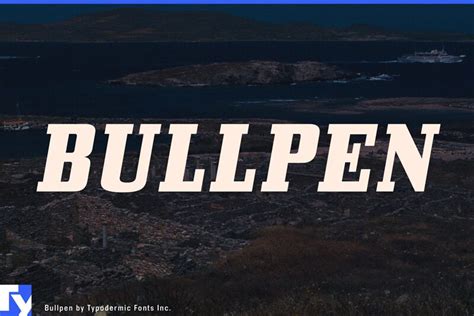
OSCOSC Bullpen SCSC Font: Your Guide To Heavy Italic
OSCOSC Bullpen SCSC Font: Your Guide to Heavy Italic
Hey there, font enthusiasts! Ever stumbled upon the OSCOSC Bullpen SCSC Heavy Italic font and wondered what the buzz is all about? Well, you’re in the right place! This guide is your ultimate pit stop for everything you need to know about this unique typeface. We’ll dive deep into its origins, characteristics, and practical uses, helping you understand why the OSCOSC Bullpen SCSC Heavy Italic font is a fantastic choice for your design projects. Get ready to explore the world of fonts, and let’s unravel the beauty of this specific font together. Whether you’re a seasoned designer or a newbie, this is for you!
Decoding the OSCOSC Bullpen SCSC Heavy Italic Font
Alright, let’s get down to brass tacks. What exactly is the OSCOSC Bullpen SCSC Heavy Italic font ? In a nutshell, it’s a typeface known for its robust and slanted appearance. The “Heavy” in its name tells us it’s a bold font, designed to grab attention. “Italic,” of course, means the letters are tilted to the right, giving it a dynamic and energetic feel. The SCSC part likely refers to the foundry or designer behind it, but we’ll focus on its visual impact. This font combines strength and elegance, making it ideal for a wide range of design applications. Think of it as a statement piece – it’s designed to make your text pop!
When we talk about the OSCOSC Bullpen SCSC Heavy Italic font , we’re referring to a font that exudes confidence and character. The slant of the italic adds a sense of movement, while the heavy weight ensures it’s easily readable, even at smaller sizes. This font isn’t just about aesthetics; it’s about conveying a specific message or feeling. It’s perfect for anything from headlines and logos to body text that needs a touch of flair. The carefully crafted letterforms of the OSCOSC Bullpen SCSC Heavy Italic font work to create a visually appealing experience, drawing the reader in and holding their attention. It’s a versatile font, offering a mix of visual appeal and readability, making it an excellent addition to any designer’s toolkit. So, let’s explore how and where you can use this awesome font to create some seriously cool designs. Keep reading!
Key Characteristics of the OSCOSC Bullpen SCSC Heavy Italic Font
So, what are the specific traits that define the OSCOSC Bullpen SCSC Heavy Italic font ? Let’s break it down to appreciate its beauty. First off, its boldness is a key feature. The thick strokes of each letter ensure maximum visibility, making it a great choice for headings and titles. Then there’s the italic slant , which gives it that sense of dynamism and movement, preventing it from feeling static. This tilt adds a touch of personality and energy to the text.
The spacing between the letters in the OSCOSC Bullpen SCSC Heavy Italic font is also important. The design usually ensures that the letters are spaced in a way that’s both visually appealing and highly readable. Think about the overall balance. Does it feel harmonious? Does it feel like an easy read? The design tries to maintain an even rhythm, so your eye can easily flow across the words. This helps with readability, which is especially important in longer texts. Moreover, the font’s distinctive letterforms are designed to be recognizable and unique. Every curve, every corner is carefully considered to create a memorable and impactful design. The OSCOSC Bullpen SCSC Heavy Italic font typically includes a full character set, so you can use it for various languages and purposes. The attention to these details makes the font not just aesthetically pleasing but also highly functional for a wide variety of design applications. It’s a tool that can drastically transform how your message is perceived.
Practical Applications: Where to Use the OSCOSC Bullpen SCSC Heavy Italic Font
Now for the fun part: how and where can you actually use the OSCOSC Bullpen SCSC Heavy Italic font ? Its boldness and italic slant make it perfect for specific applications. It’s fantastic for headlines and titles in print and digital designs. Imagine this font on a website banner or a magazine cover. It grabs attention immediately, making your message stand out. This font also works well in logos and branding . Its unique look can help a brand establish a strong visual identity. It’s memorable and conveys a sense of confidence and creativity. Logos using this font are designed to be immediately recognizable and impactful, helping in brand recall and recognition.
Moreover, the OSCOSC Bullpen SCSC Heavy Italic font can be effectively used for call-to-action buttons or any text element that needs to jump out at the viewer. Whether it’s a “Buy Now” button on a website, or a promotional message in an ad, this font makes sure that the viewer doesn’t miss the call to action. You can use it in posters and advertisements . The font’s strong visual impact makes it ideal for campaigns that need to be bold and grab attention. Using this font in posters ensures your message is both stylish and informative. Finally, consider using it for website headings and other display text. It gives a unique and modern look to your content, making the overall design more engaging. It’s all about creating an aesthetically pleasing and easily readable experience. The best part is that this font is versatile enough to be used in various different creative scenarios. From the digital landscape to print media, it’s designed to make your design projects more attractive and successful.
Tips and Tricks for Using the OSCOSC Bullpen SCSC Heavy Italic Font
Alright, let’s get you ready to use the OSCOSC Bullpen SCSC Heavy Italic font effectively. First things first, pair it wisely . Since it’s a bold and attention-grabbing font, it’s often best paired with a more neutral or lighter font for body text. This contrast enhances readability and prevents the design from feeling cluttered. For example, use the OSCOSC Bullpen SCSC Heavy Italic font for headings and a clean sans-serif font for the body. That’s a good way to create visual harmony. Consider the size of the font. Because it’s a heavy font, using it in large sizes will make it very striking, ideal for headlines. At smaller sizes, ensure the font is still legible. Test it out and adjust accordingly to maintain readability.
Choose the right color . The font’s impact can be significantly enhanced or diminished based on color choice. The font usually looks great when paired with contrasting colors. Dark text on a light background, or vice versa. The color should also complement the overall tone of your design. Experiment with spacing . Kerning and leading are critical. Because it’s an italic font, you may need to adjust the kerning (the spacing between individual letters) to ensure it looks balanced. The leading (the spacing between lines of text) should be adjusted to aid readability. You can also experiment with different effects such as drop shadows, outlines, or gradients to add visual interest. These small tweaks make a significant difference. Test on different platforms . Always test how the font looks on different devices and in different contexts. A design that looks great on your desktop might not look the same on a mobile device. Always ensure that the font is optimized for all the platforms where your audience will see it. Using these tricks will help ensure you get the most out of the OSCOSC Bullpen SCSC Heavy Italic font .
Conclusion: Embrace the Boldness of the OSCOSC Bullpen SCSC Heavy Italic Font
So, there you have it, folks! We’ve covered everything you need to know about the OSCOSC Bullpen SCSC Heavy Italic font . From its unique characteristics to its practical applications and where to find it. This font is a fantastic tool for any designer, and it’s a great way to add personality and impact to your projects. Remember to use it strategically, pair it with complementary fonts, and experiment with different colors and sizes. Most importantly, have fun with it! Keep experimenting, and keep pushing your creativity to create something new. With its bold design and Italic style, this font is sure to make your work shine. This font is a statement, so why not make a bold one? Go ahead, and give the OSCOSC Bullpen SCSC Heavy Italic font a shot and see how it transforms your designs.